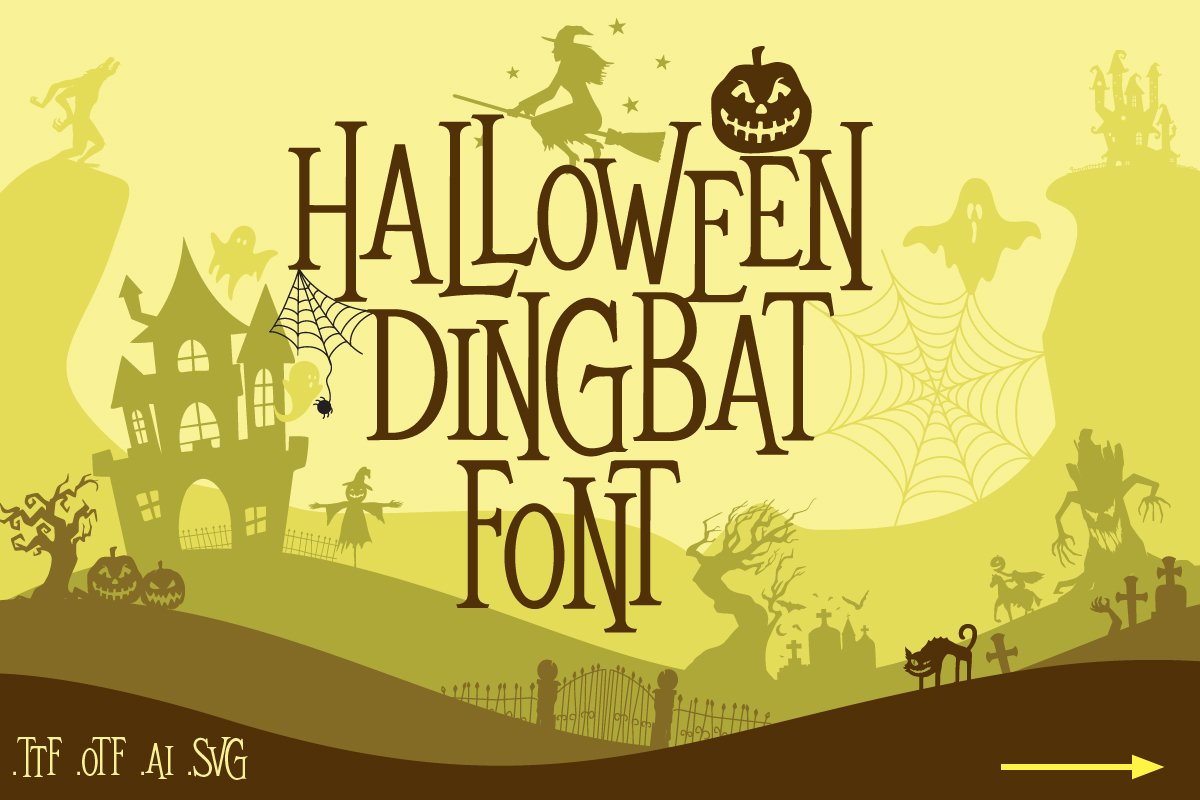
Mitoos Halloween Dingbat Font with svg file
MitoosHalloween
Introducing Mitoos Halloween Dingbat Font with svg file,
Mitoos Halloween Dingbat Font includes 110 unique hand crafted characters in all.
Halloween Theme symbols font, you can access them by typing font character